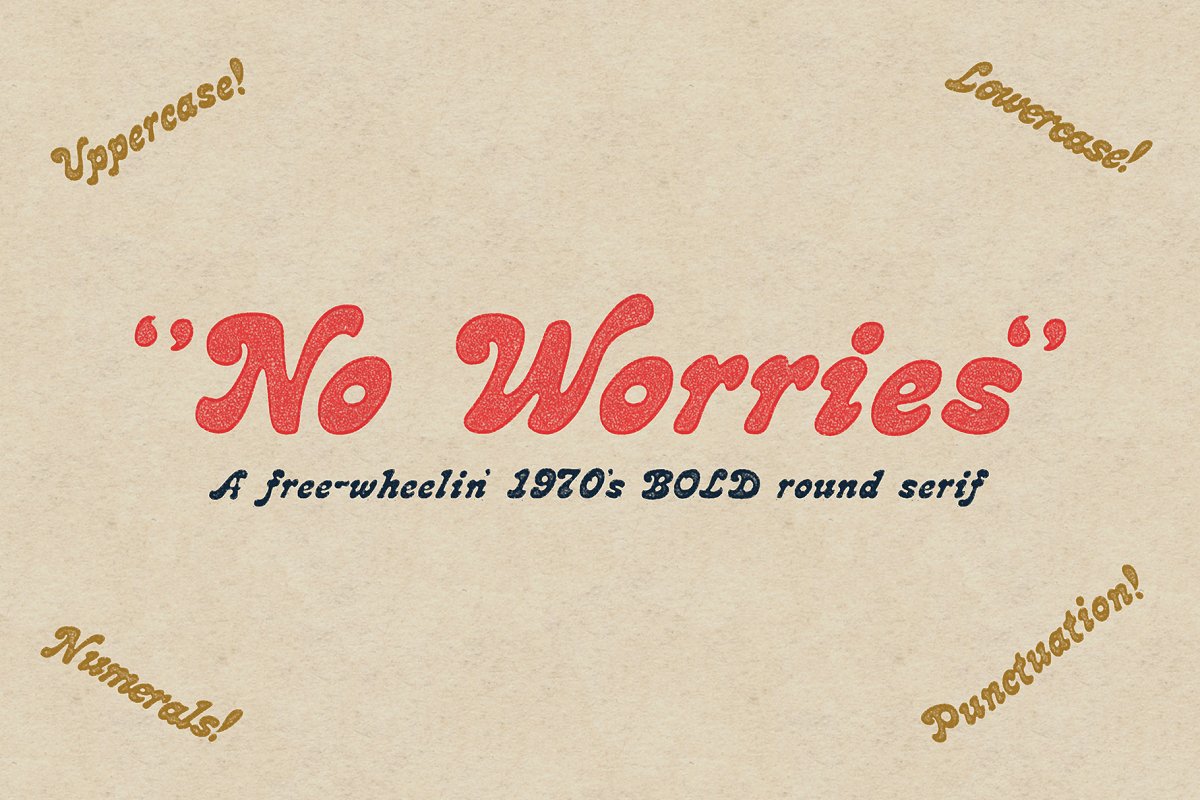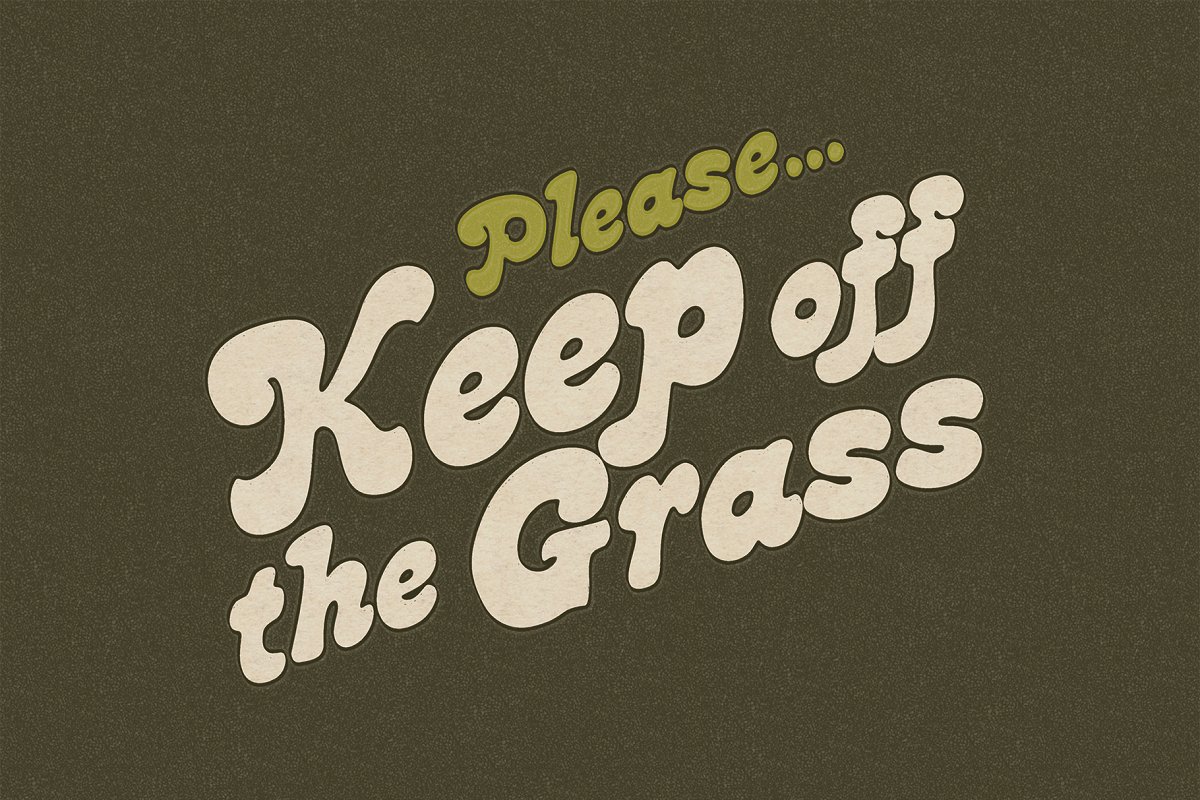
About the No Worries Font
No Worries is a free-wheelin’ 1970’s bold round serif that fits somewhere between Cooper Bold and Bookmania with a heavy dose of wet hot psychadelia, This display typeface is best suited for apparel graphics, logos, posters, and fun times, Please let me know if you use it on a project,